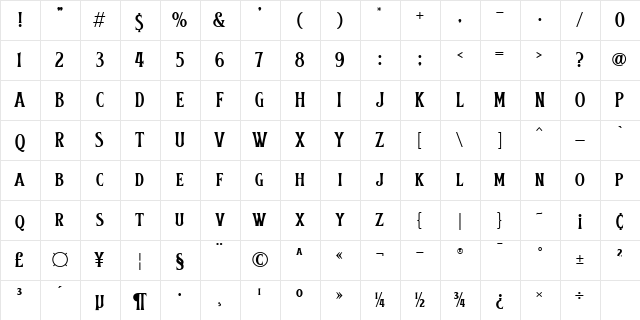
Obsypac Regular
| Foundry | Twicolabs Fontdation |
| Designer | Twicolabs Fontdation |
Design Context for Obsypac Typeface
Obsypac offers clean, dependable letterforms without strong stylistic allegiance, making it a practical choice for designers who need flexibility.